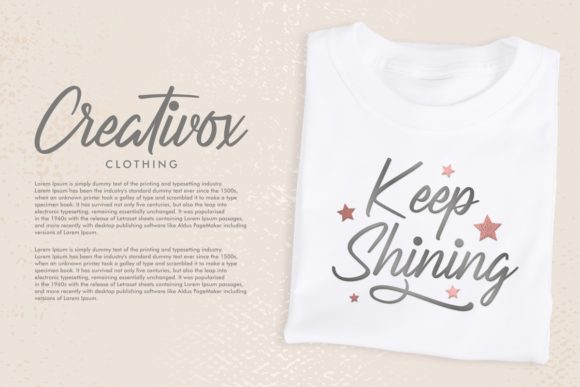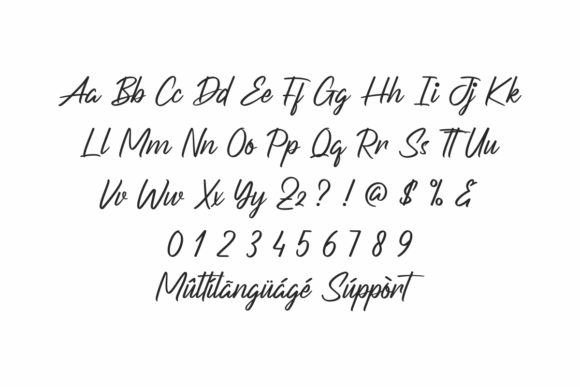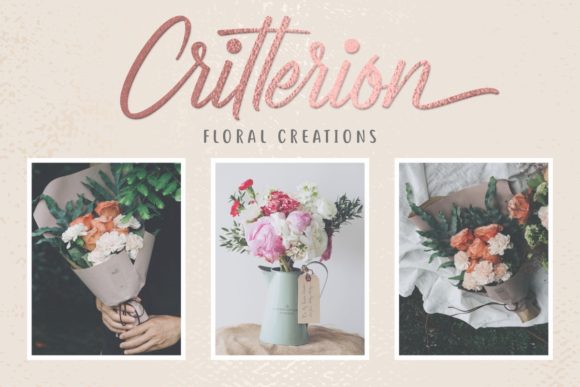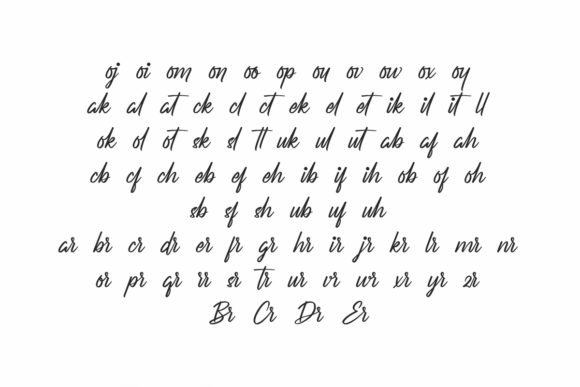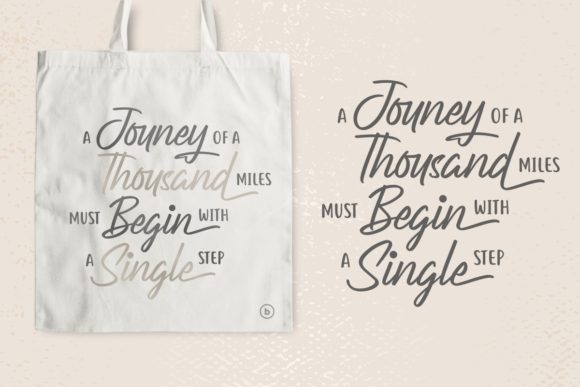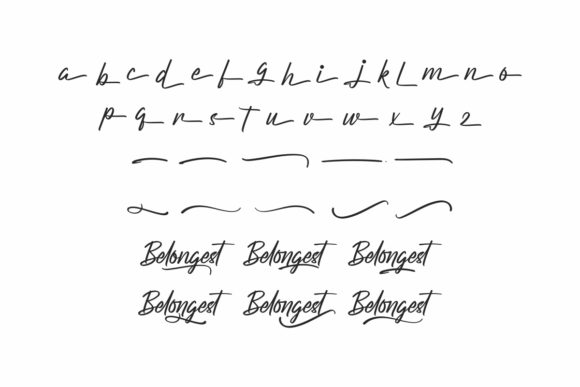
Discover the Magic of the Belongest Font
As designers, we’ve all been there – staring at a blank canvas, searching for that perfect font to bring our vision to life. It’s a moment of pure creativity, where the possibilities seem endless and the excitement is palpable. And then, it happens – you stumble upon the perfect font, one that perfectly captures the essence of your design. For many of us, that font is the Belongest Font, a stunning handwritten font that adds a touch of elegance and sophistication to any project.
The Belongest Font is more than just a pretty face – it’s a powerful tool that can elevate your designs to new heights. With its unique and all-around touch, it’s the ideal option for creating eye-catching logos, branding, and quotes that truly stand out. Whether you’re a seasoned pro or just starting out, the Belongest Font is a valuable addition to your design toolkit.
Key Features of Belongest Font
- Unique Characteristics: The font features a unique, hand-drawn design with subtle texture and organic feel, making it perfect for creative and artistic projects.
- Scalability: The font is designed to be highly scalable, ensuring that it looks great in a wide range of sizes, from small text to large headlines.
Belongest Font Review
I’ve had the chance to work with the Belongest Font, and I must say, it’s a mixed bag. Let’s start with the good stuff: ✨ The font’s unique blend of modern and playful elements really shines in headings and titles. It adds a touch of whimsy and personality to any design. The font also comes in a range of weights and styles, which is always a plus. ✨ The designer has also included a nice set of glyphs and icons, which can be a huge time-saver in projects.
However, there are some limitations to consider: ⚠️ The font can be a bit too ornate for body text, which can make it difficult to read at smaller sizes. ⚠️ Additionally, the font’s consistency can be a bit inconsistent across different platforms and devices. ⚠️ Finally, the font’s licensing terms can be a bit restrictive, which may not be suitable for all projects.
Overall, I think the Belongest Font is a solid choice for designers who want to add a bit of personality to their projects. However, it may not be the best fit for every project, and designers should carefully consider the font’s limitations before making a decision.
Here are some specific pros and cons:
- Unique and playful design
- Range of weights and styles
- Nice set of glyphs and icons
- Can be difficult to read at smaller sizes
- Inconsistent across different platforms and devices
Belongest Font Practical Application Guide
To get the most out of the Belongest font, use it sparingly and in combination with other fonts to create visual interest. You can also experiment with different font sizes, colors, and styles to add depth and dimension to your design.
The Belongest font is ideal for use in creative projects, such as:
- Invitations and event materials
- Blog posts and articles
- Social media graphics and ads
- Print materials, such as business cards and brochures
Alternatives to Belongest Font
Montserrat is a sans-serif font that was designed for digital use. It is clean, modern, and highly legible. Use Montserrat when you need a font that is both stylish and functional. Montserrat is similar to Belongest Font in its clean design, but it has a more geometric feel and is more suitable for body text.